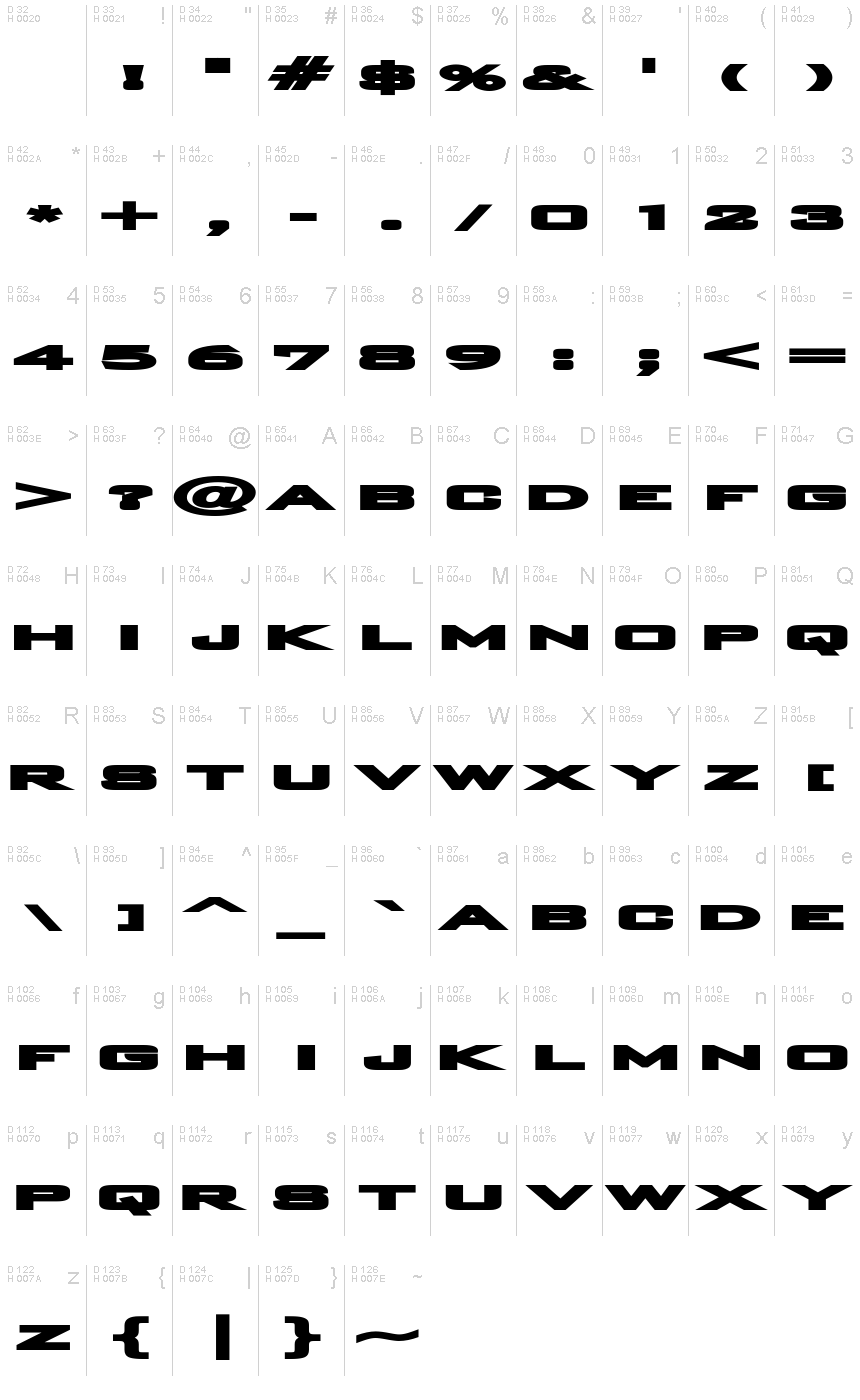
Plain O Matic
Plain O Matic is a striking, futuristic display font designed by Utopia. With its bold, expanded letterforms, this font exudes a distinct sense of modernity and technological sophistication.
The sharp, angular shapes and geometric aesthetic lend themselves particularly well to dynamic headlines, bold signage, and immersive digital interfaces. Plain O Matic's versatility makes it an ideal choice for a wide range of design applications, from branding and packaging to editorial layouts and multimedia projects.
Its bold presence commands attention, while its sleek, futuristic style conveys a sense of innovation and forward-thinking.
The sharp, angular shapes and geometric aesthetic lend themselves particularly well to dynamic headlines, bold signage, and immersive digital interfaces. Plain O Matic's versatility makes it an ideal choice for a wide range of design applications, from branding and packaging to editorial layouts and multimedia projects.
Its bold presence commands attention, while its sleek, futuristic style conveys a sense of innovation and forward-thinking.